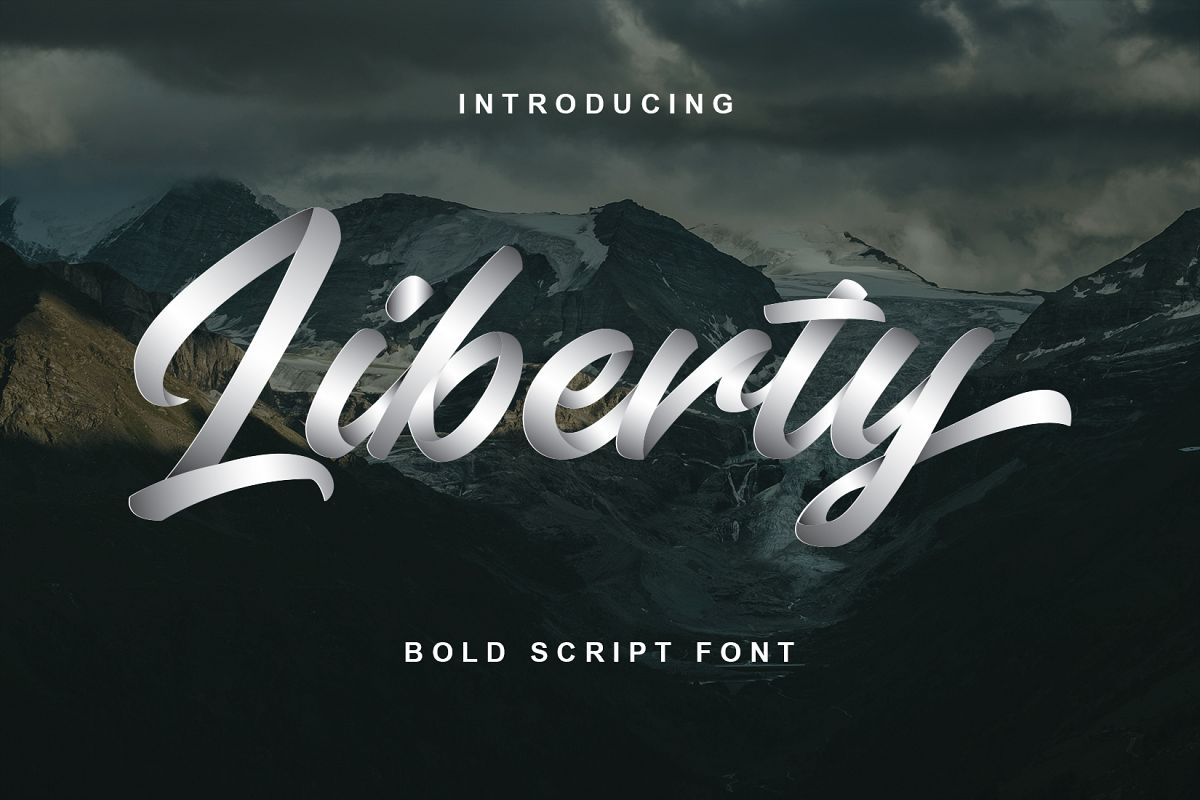
Liberty is a cool and stylish script font. Perfect for logos, branding and packaging. The font comes with additional PUA encoded glyphs to add a little extra to your projects